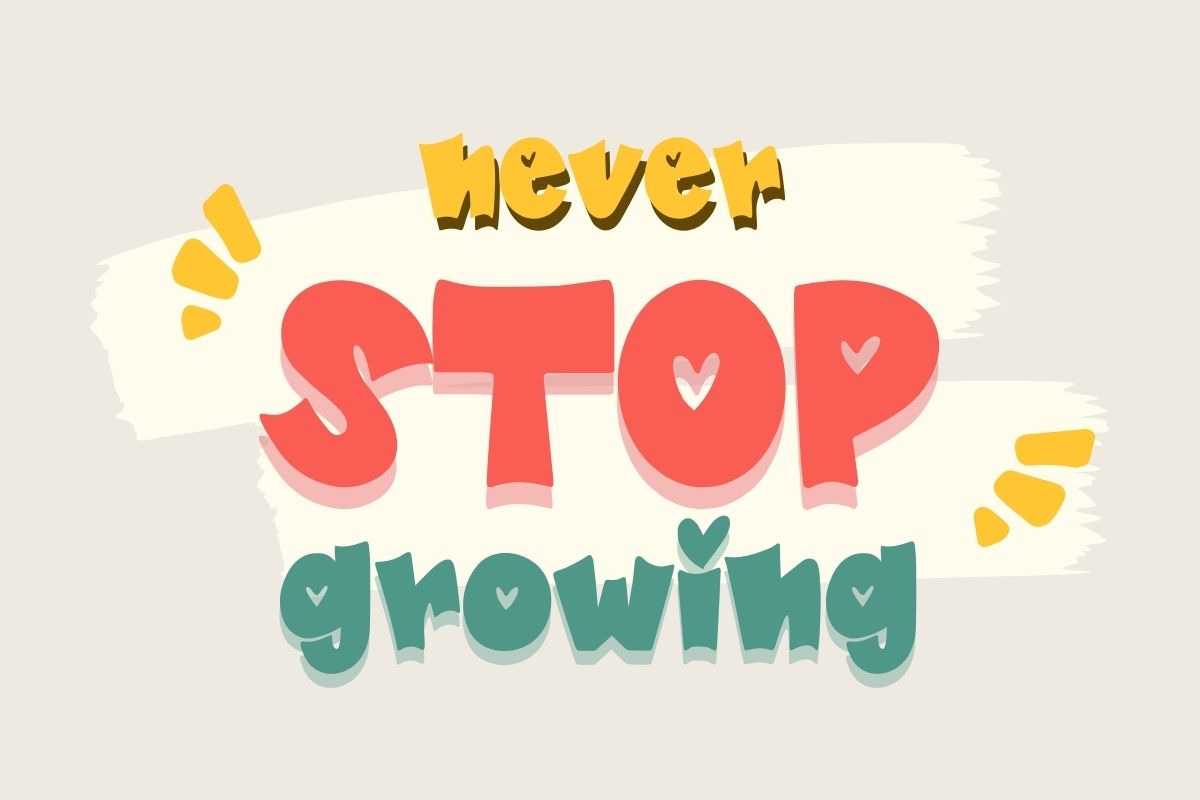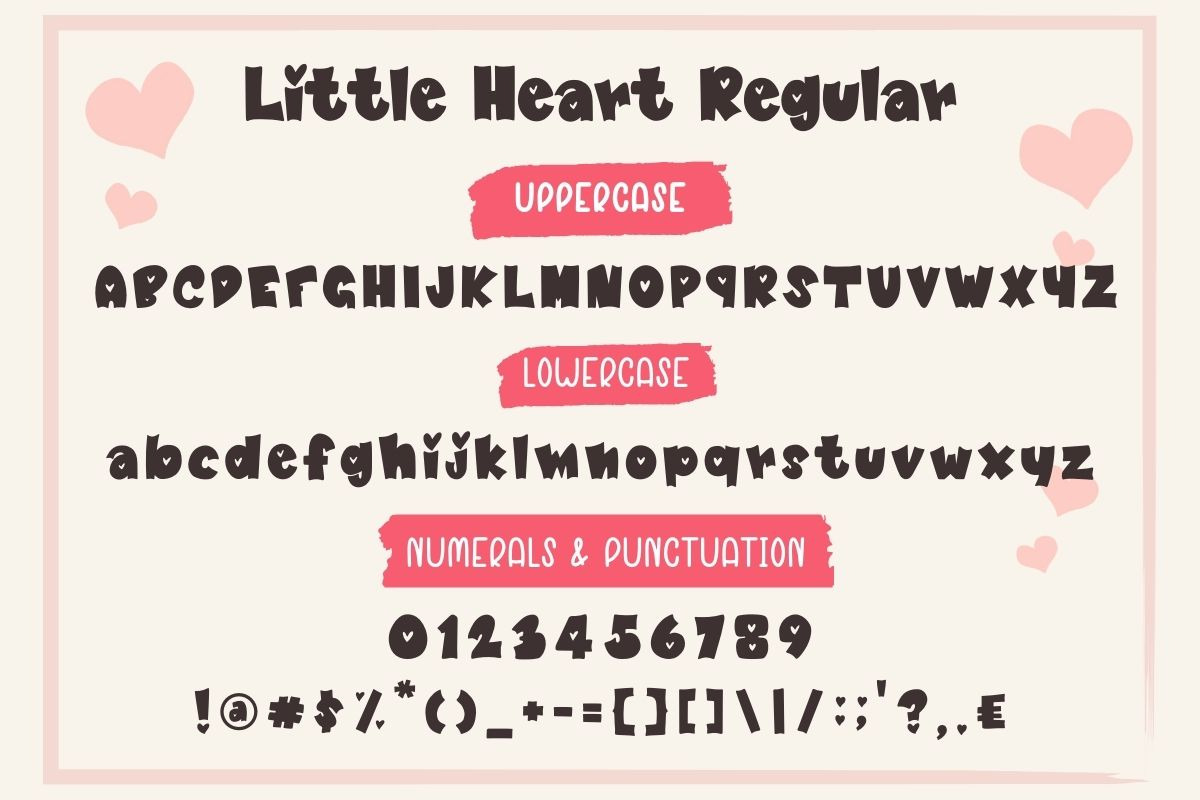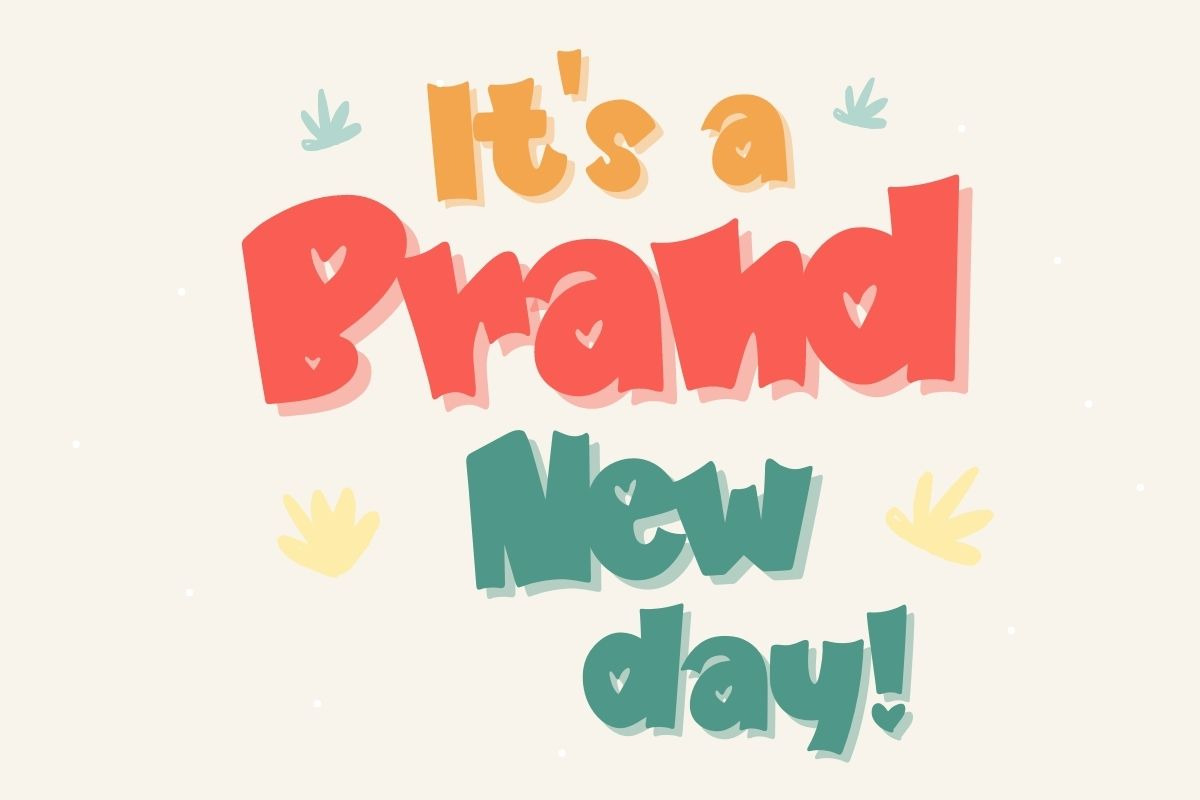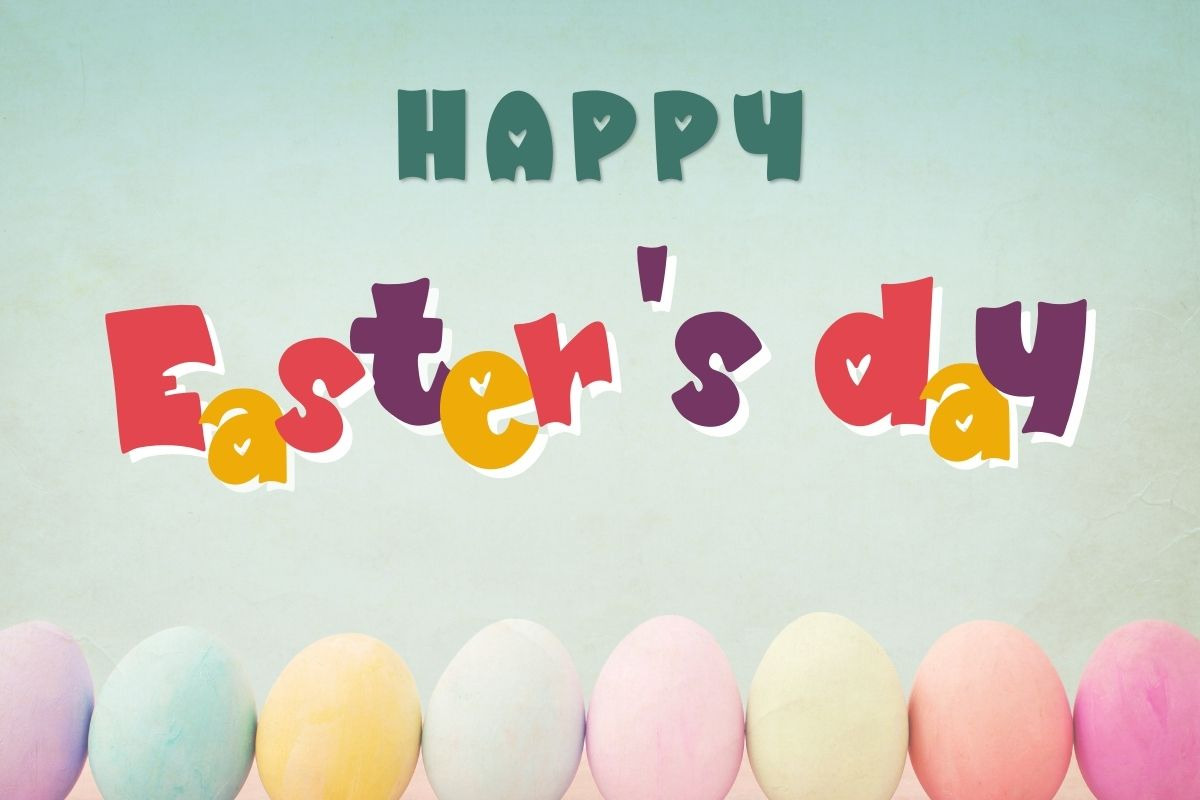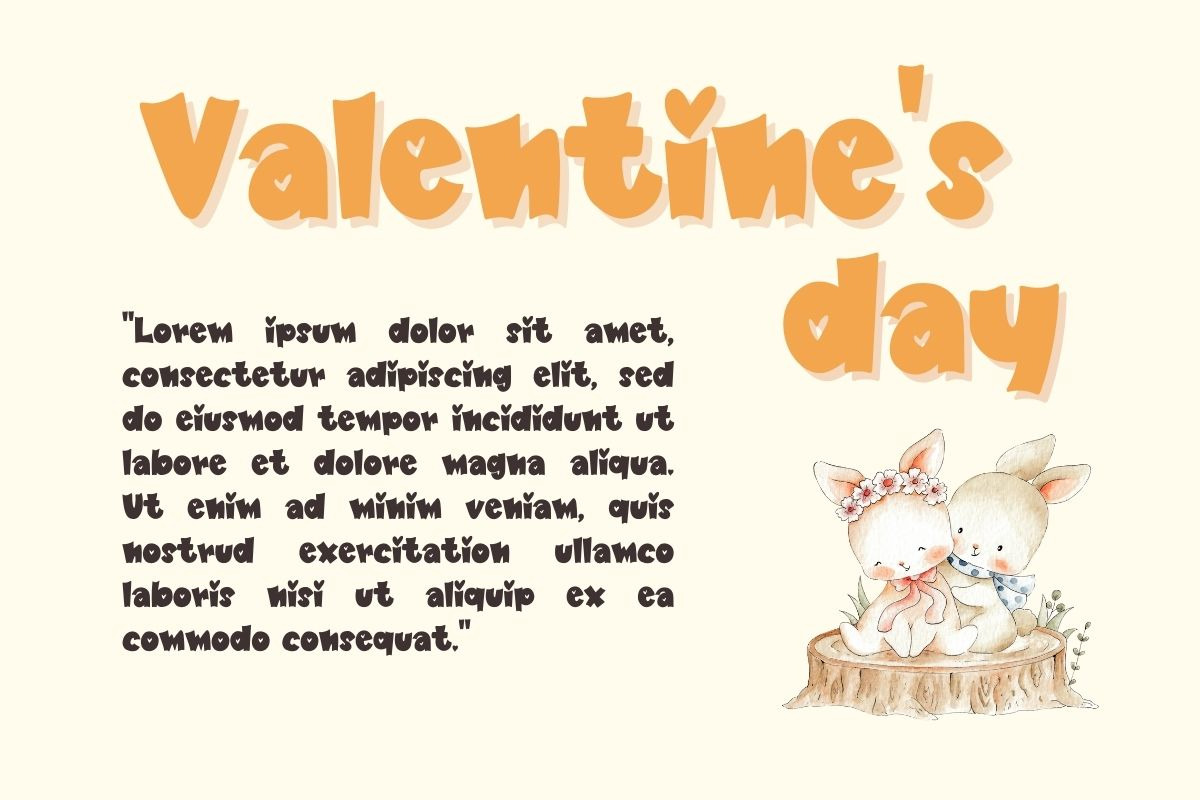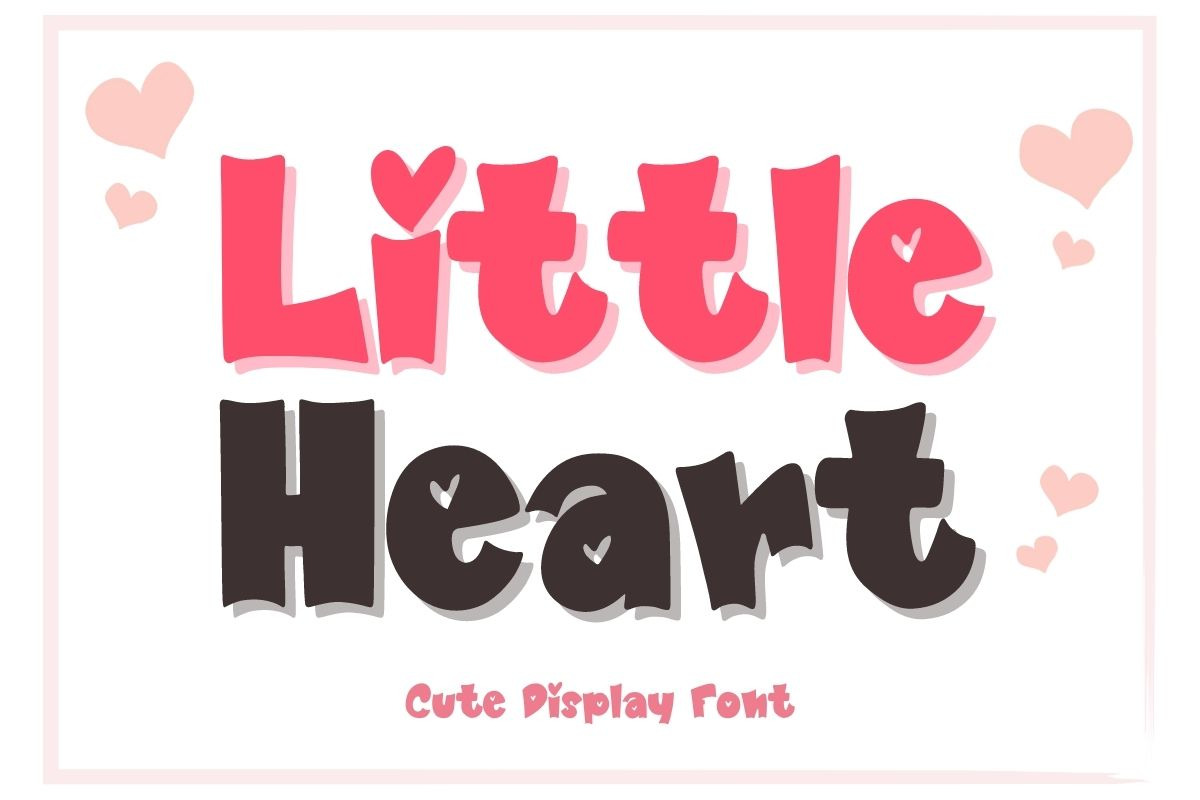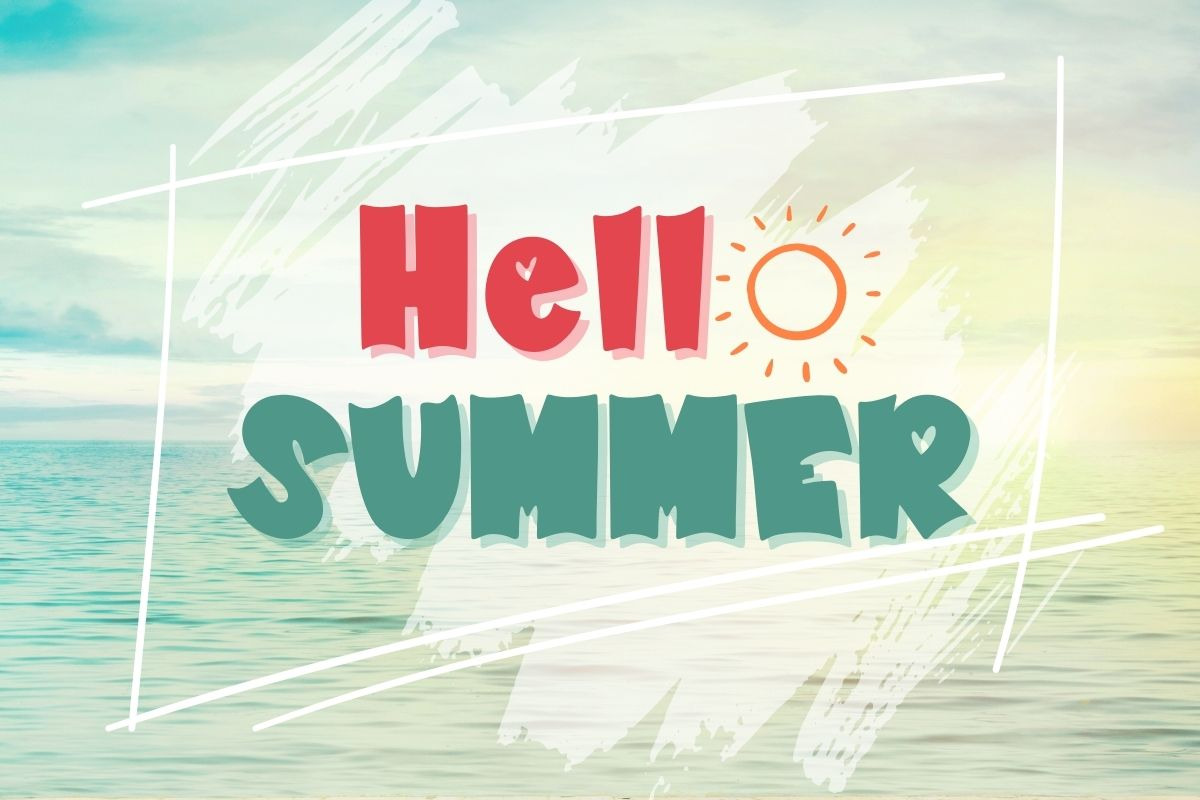
Little Heart | Handwriting Font
Little Heart is a cute and slightly quirky display font. With its casual charm, this font is perfect for a wide pool of design ideas and products such as banners, mugs, cards, shirts, stationery, social media posts, and more!